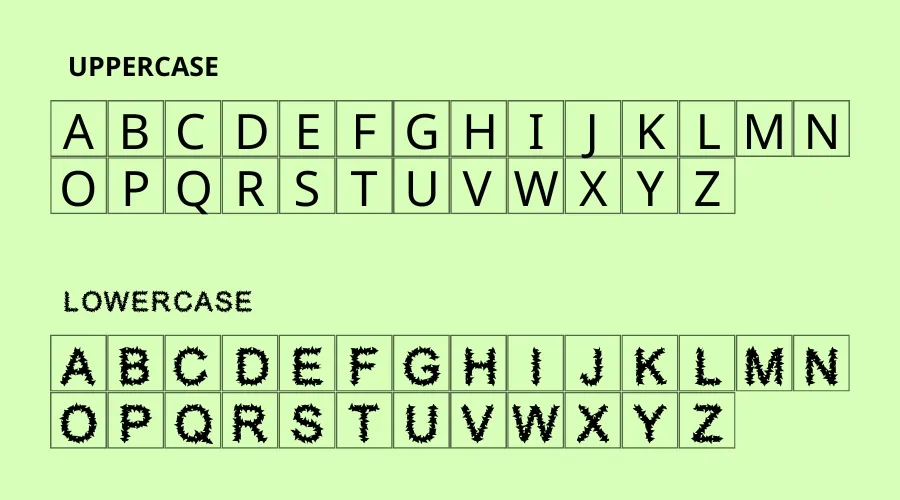
Furry Font
About Furry Font
Cathrine Understrup designed Furry Font is a fancy text style there is a strong modern feel to all letters, along with thick strokes. This is why modern designers prefer it. For the professional designs as well.
Using it can make a design stand out and be unique. Hence, once a designer understands its competencies, they will use them in many designs.
Considering its keen features, it would be perfect when paired with pencil box font to make amazing designs for the project.
In addition to bold editorial statements and graphic heavy prints, this font can also be used as a simple logo and simple branding. Your designs will stand out and be unique with this new type. Regular is a subfamily of the font.